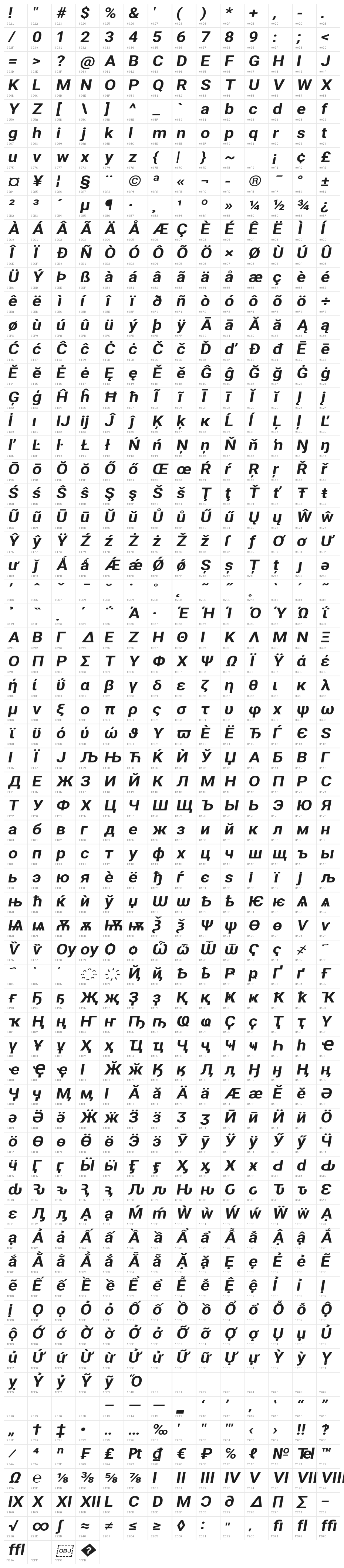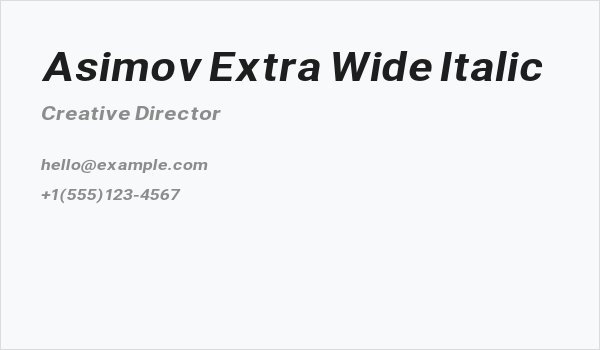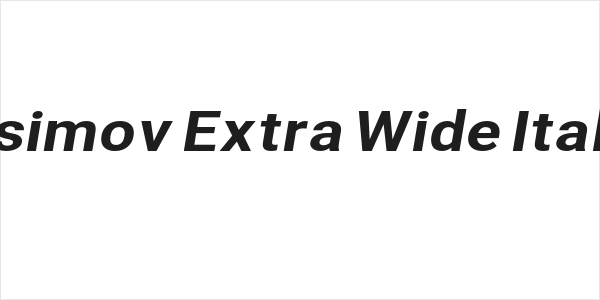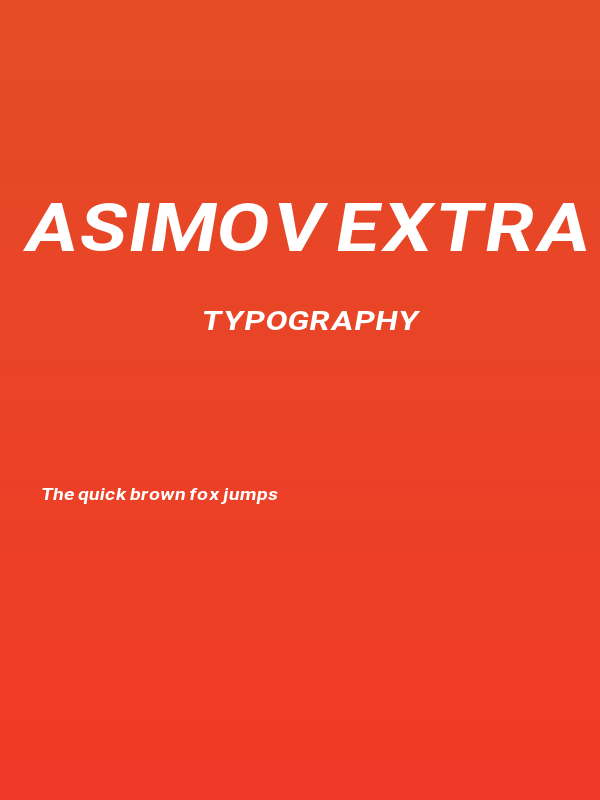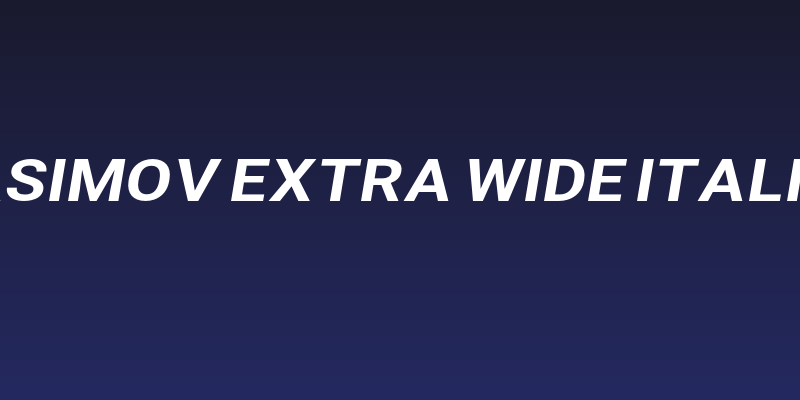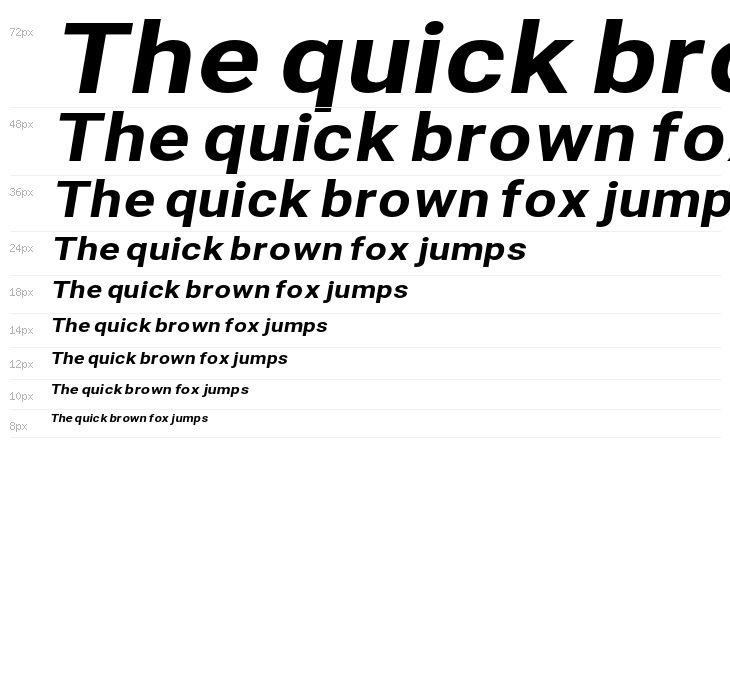
Asimov Extra Wide Italic Font
Asimov Extra Wide Italic Description
This font features a bold and expansive design with a distinct italic slant, giving it a dynamic and forward-moving appearance. The characters are wide, providing a sense of stability and strength. The uppercase letters are prominent and commanding, while the lowercase letters maintain a consistent style that complements the overall aesthetic. The numerals are clear and easily readable, making them suitable for various applications. The special characters are well-integrated, maintaining the font's cohesive look. This typeface is ideal for projects that require a modern and assertive presence.
| Use Case | Headlines, Logos, Advertising |
| Proposed Projects | Ideal for branding, advertising, headlines, and digital media where a strong and modern impression is needed. |